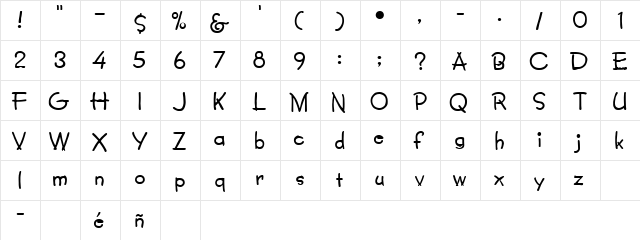
LOUISETTA Regular
LOUISETTA offers clean, dependable letterforms without strong stylistic allegiance, making it a practical choice for designers who need flexibility.